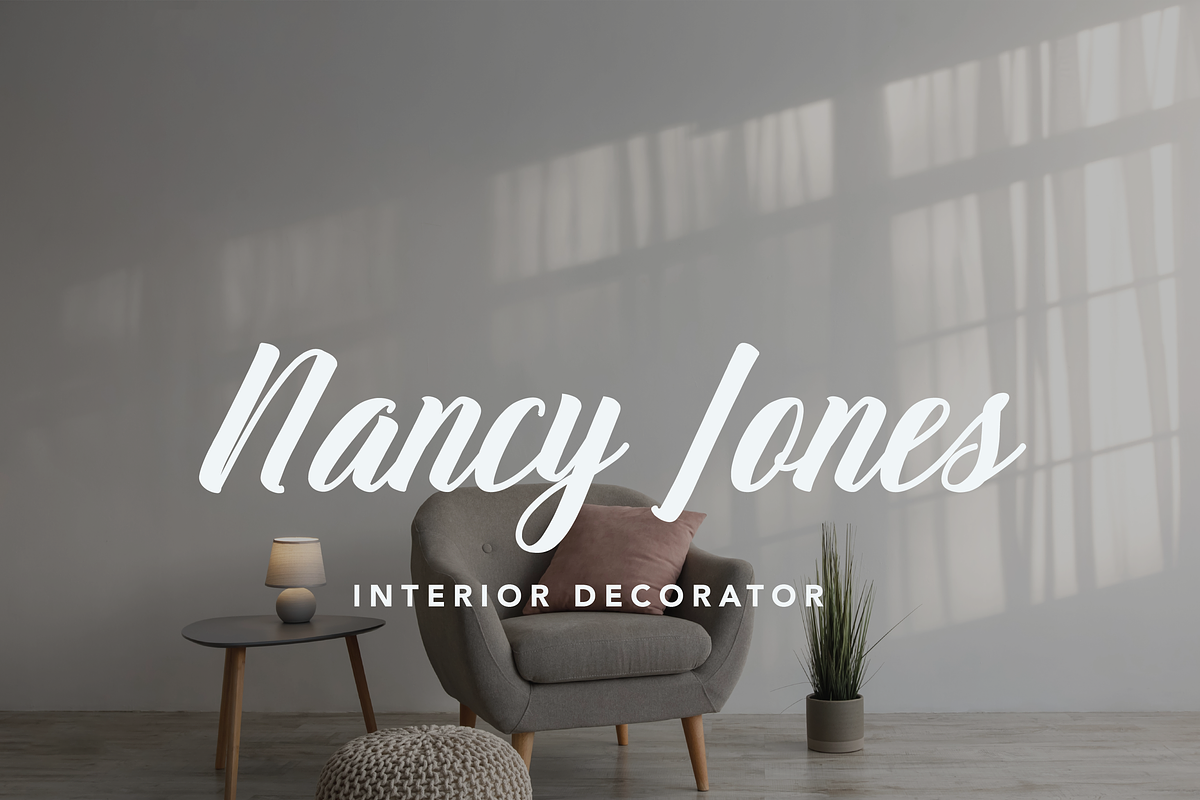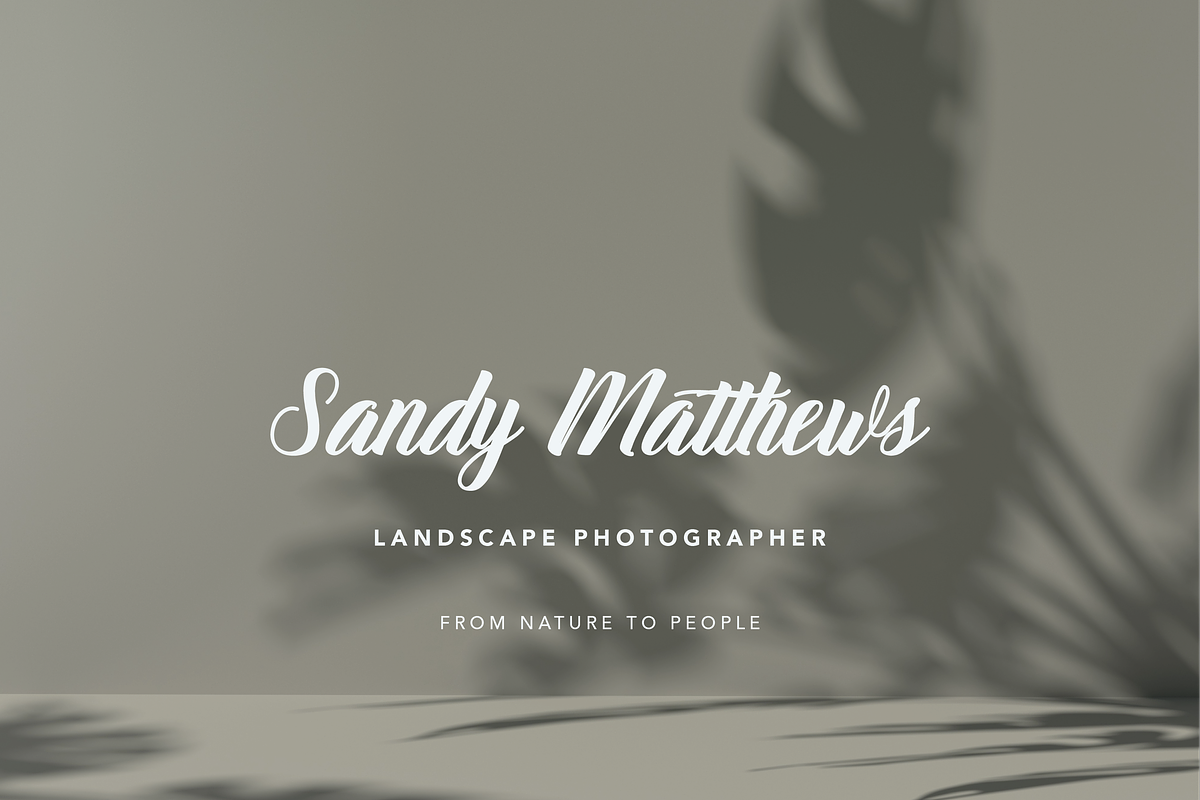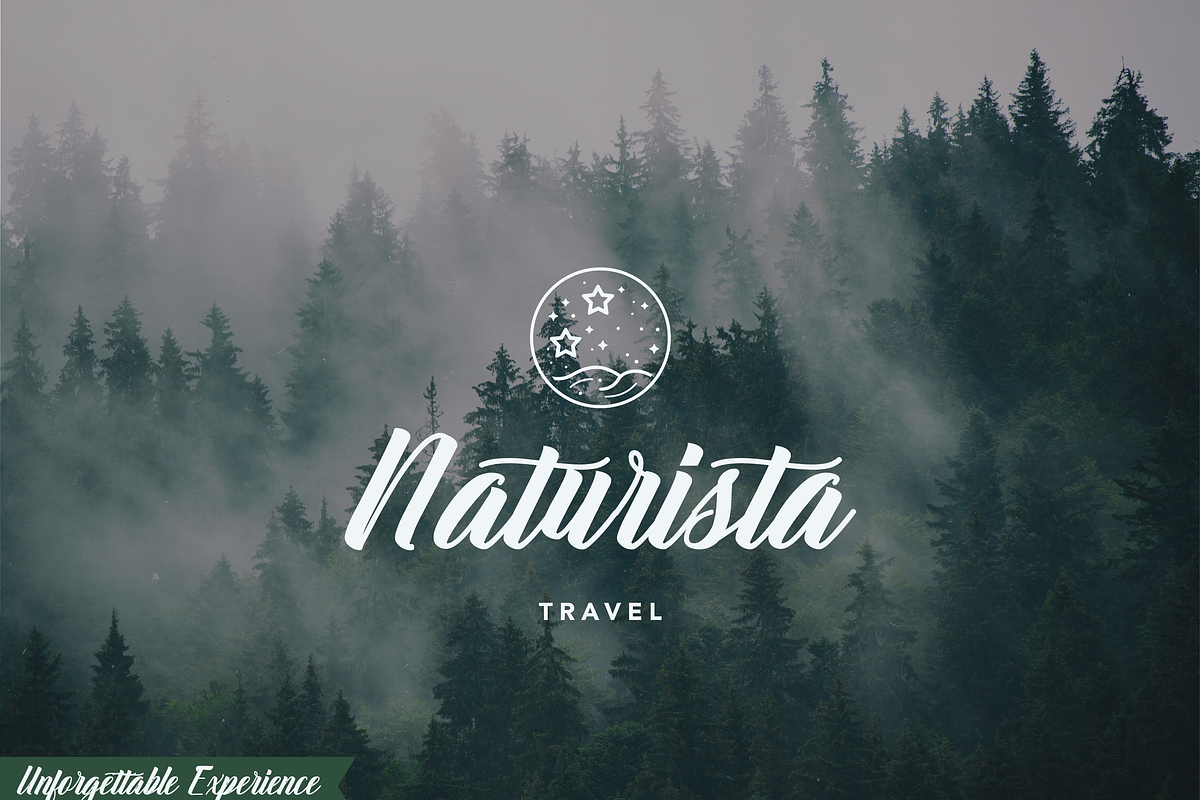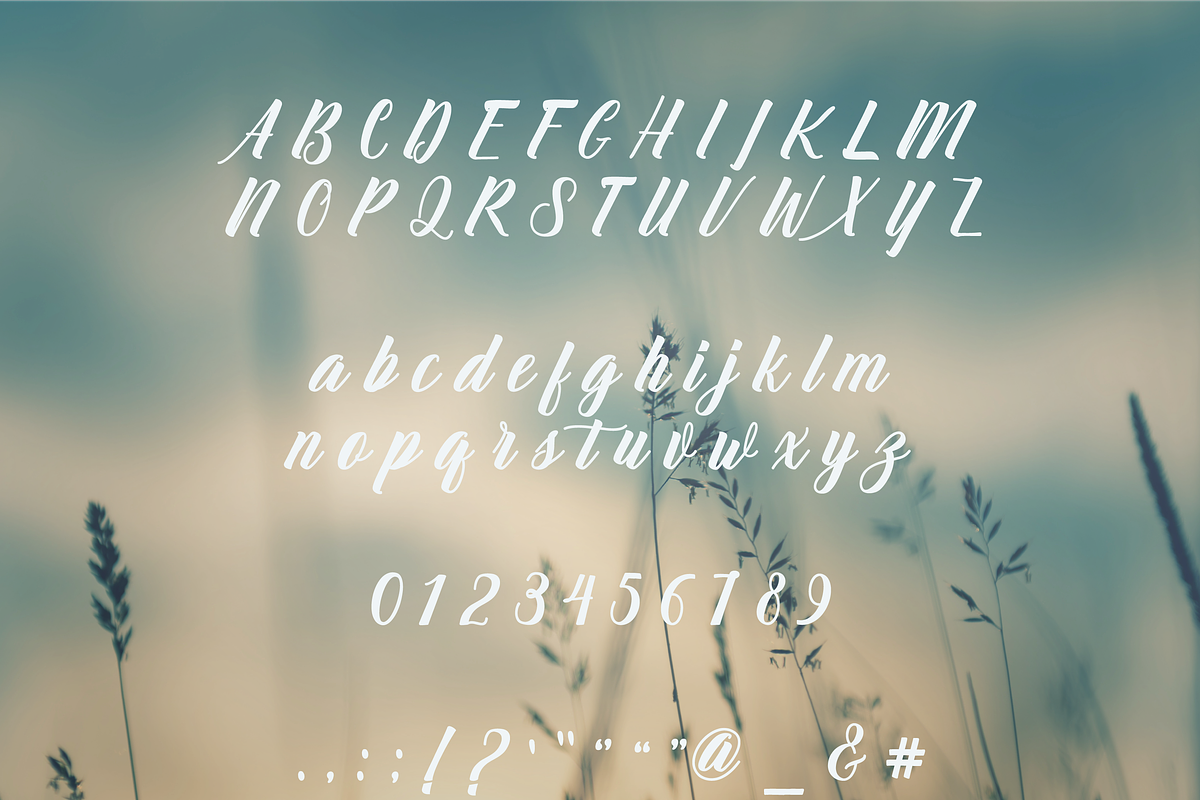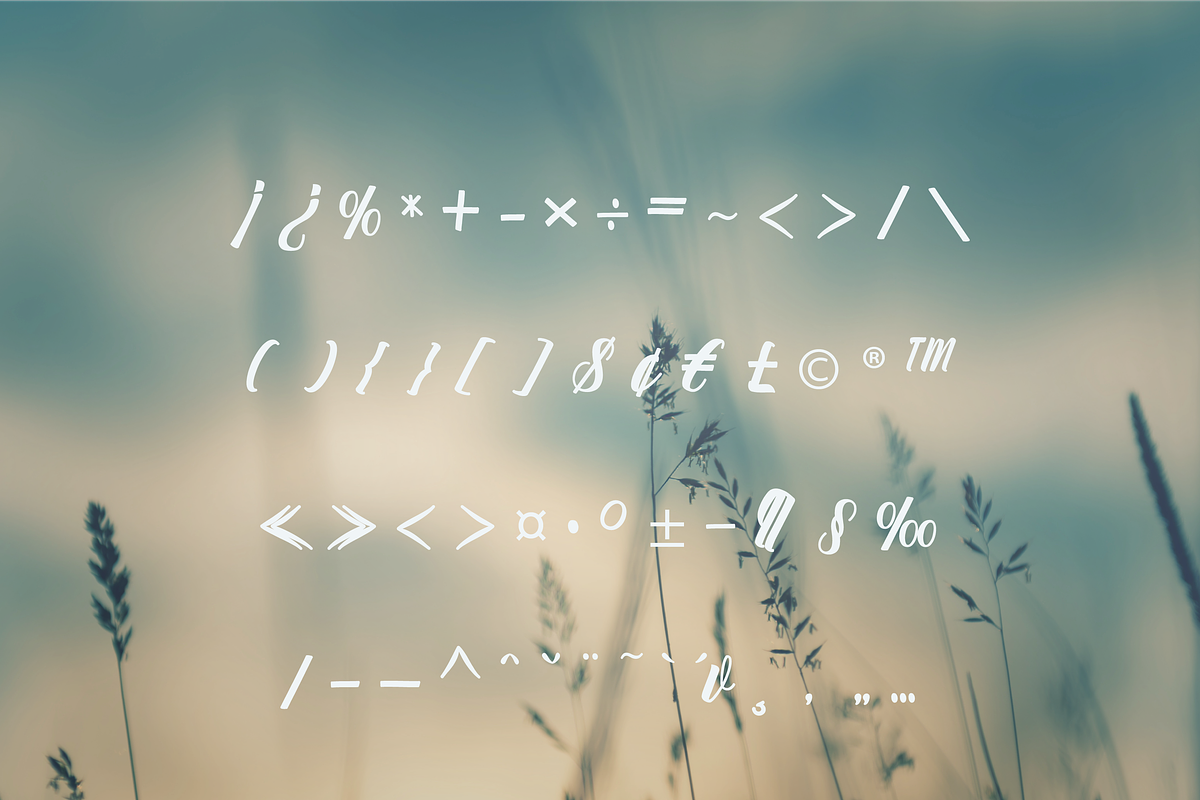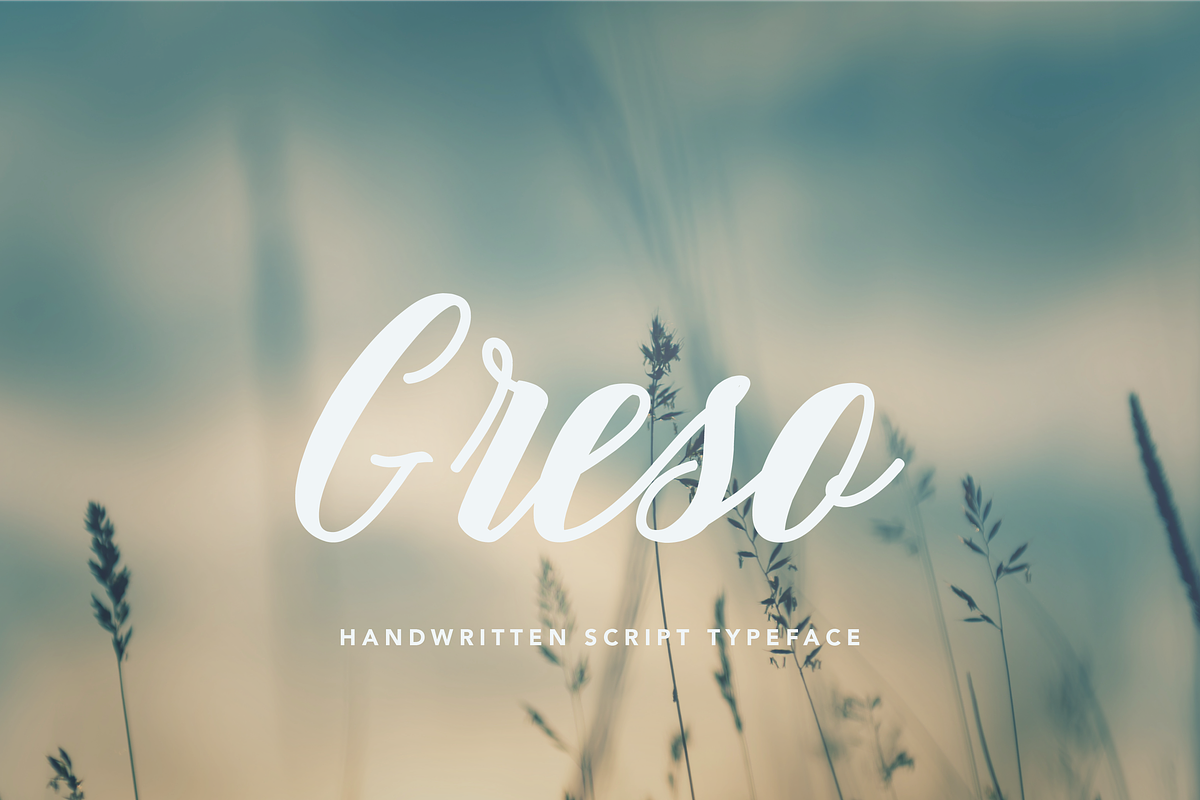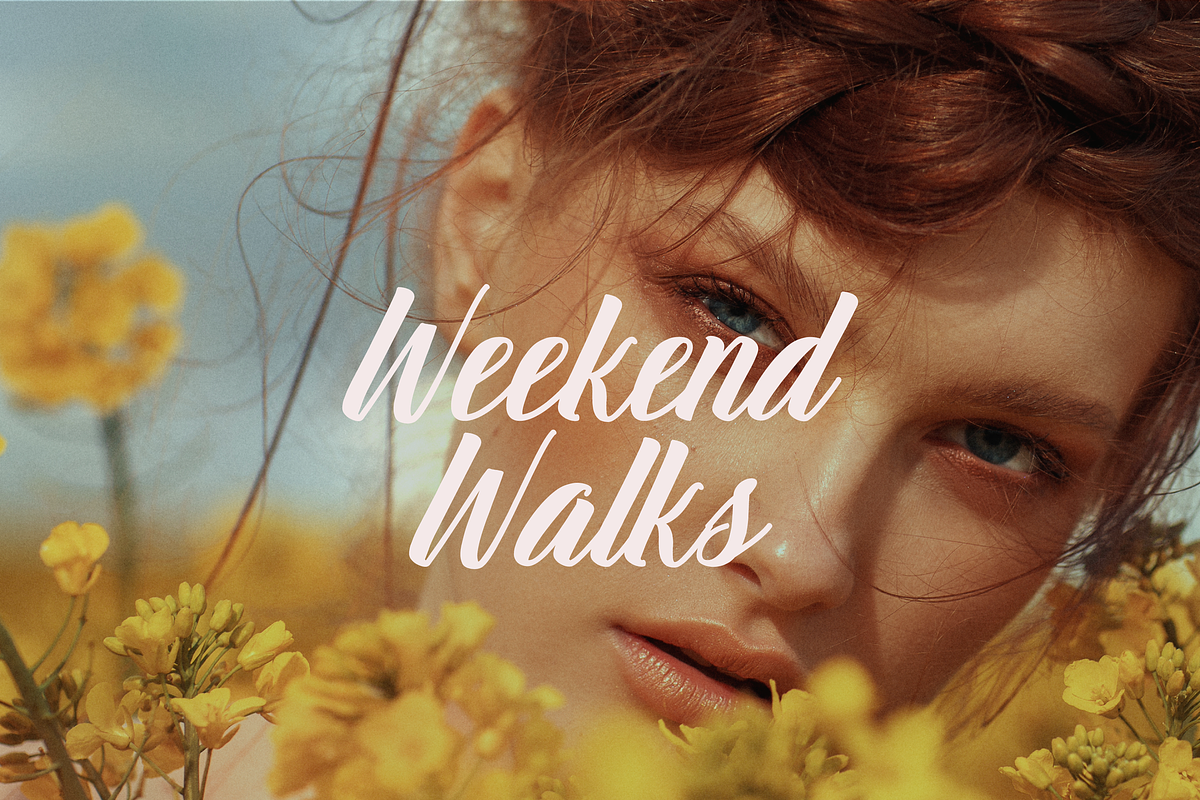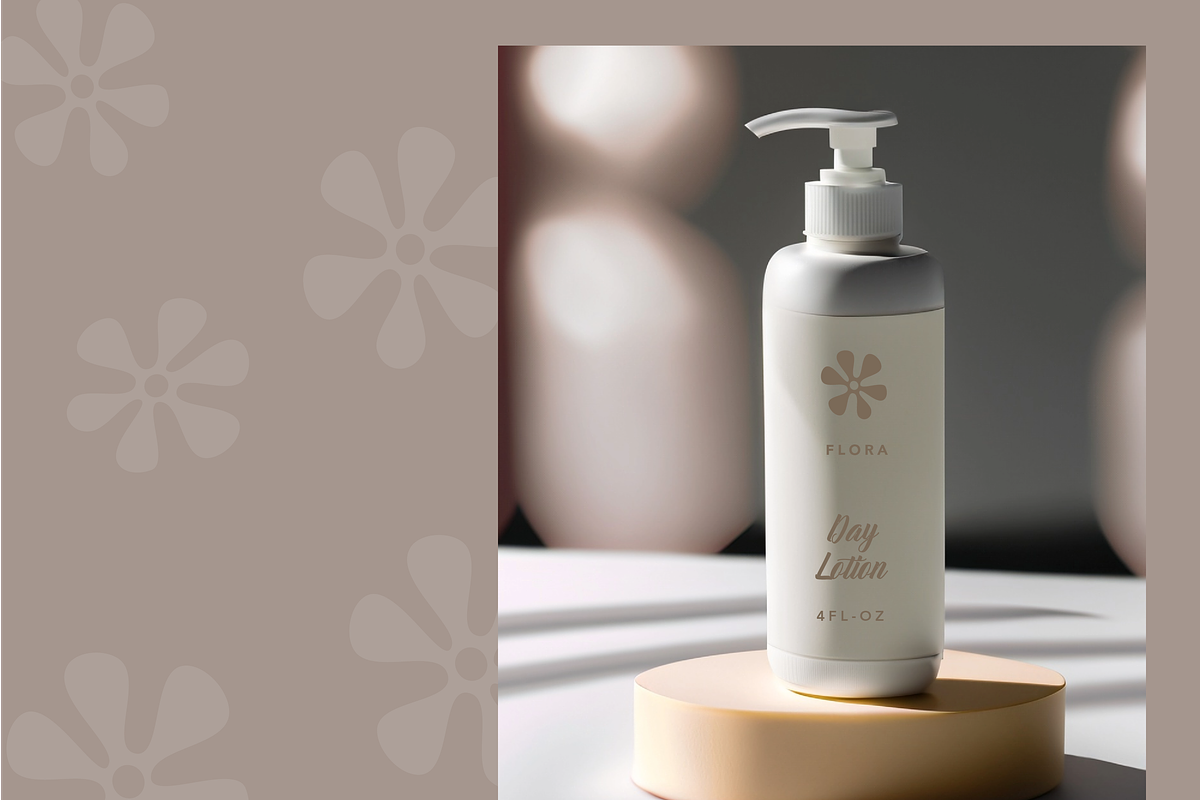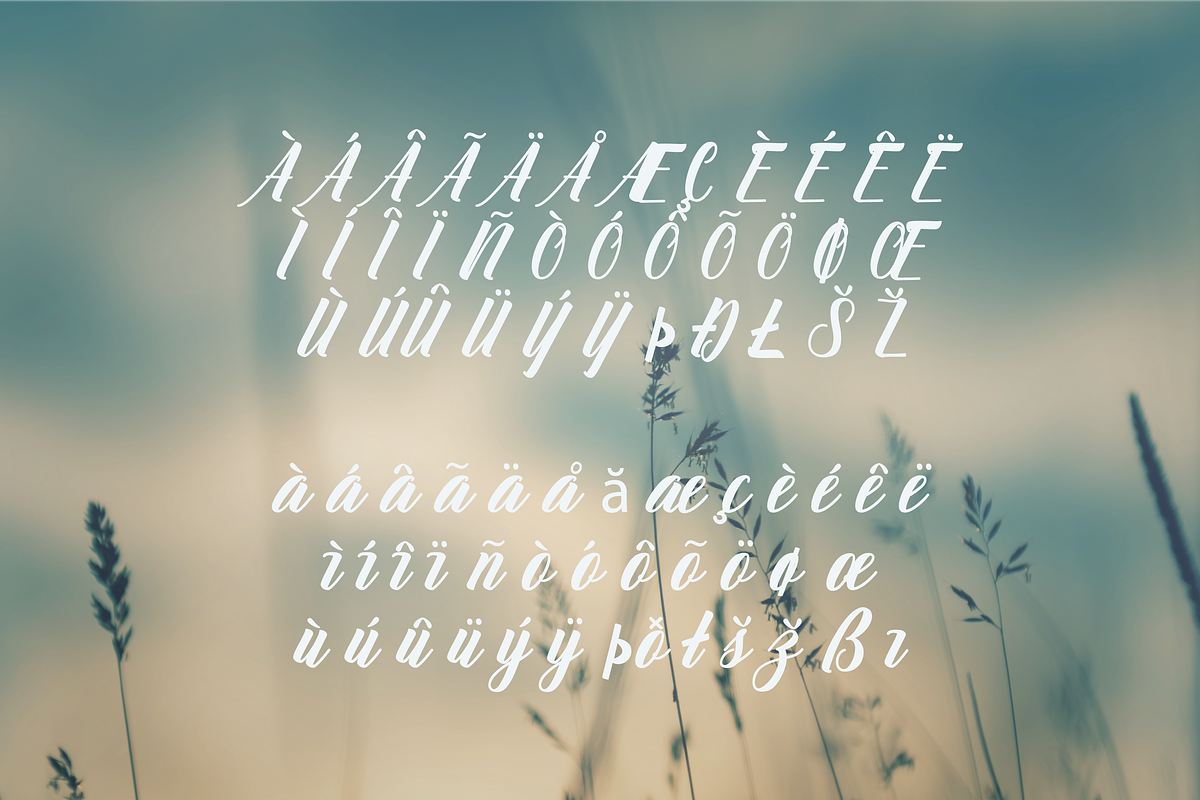
Greso Font - Handwritten Script Font
Introducing Greso Font, a beautiful and versatile font and texture set designed to achieve elegant and feminine designs. This stunning calligraphy font, with its smooth, flowing lines and classic, sophisticated touch, exudes grace and charm. Perfect for a wide range of applications, Greso Font is ideal for headings, logos, wedding invitations, t-shirts, letterheads, signage, labels, posters, badges, and more.